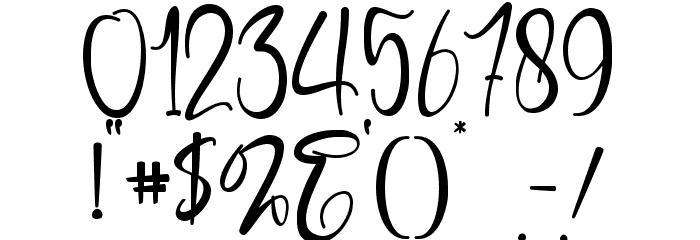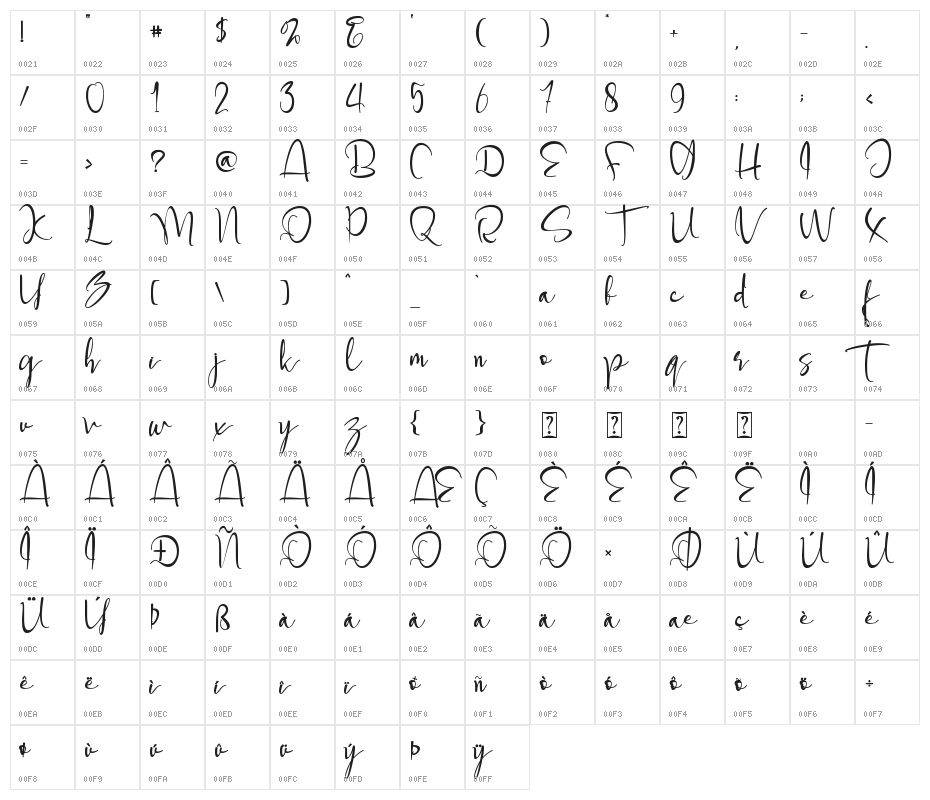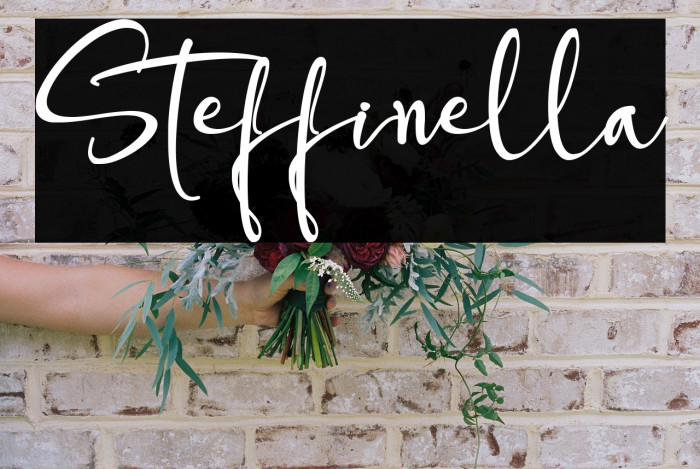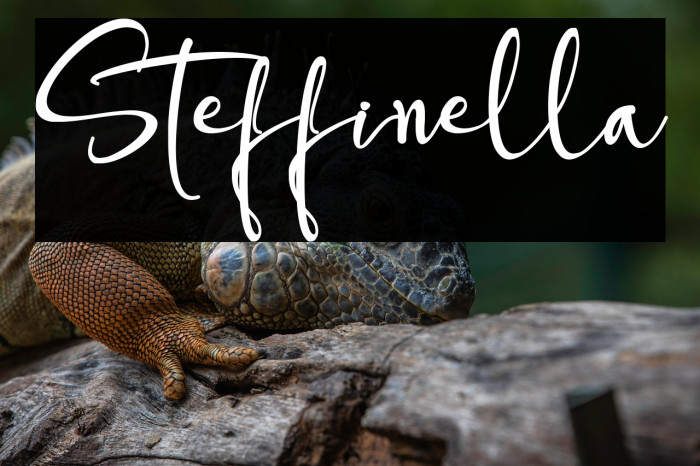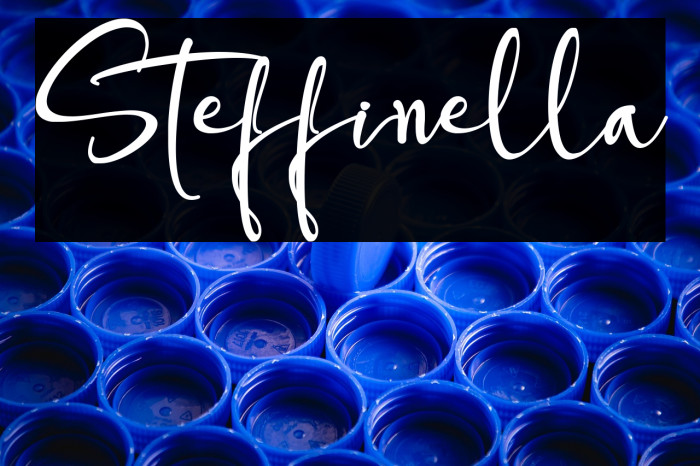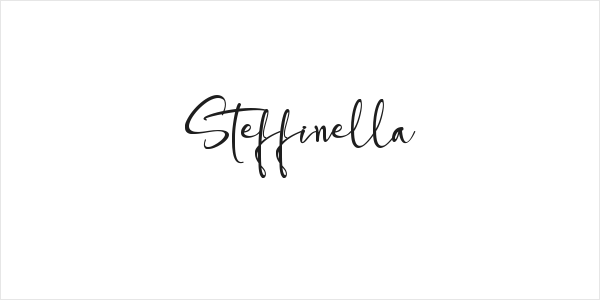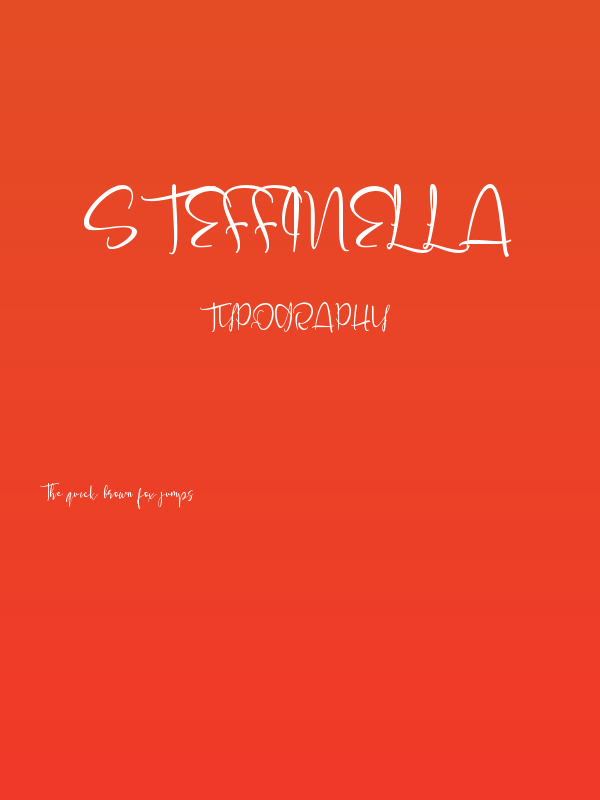
Steffinella Font
Steffinella Description
This font exudes a lively and dynamic character with its flowing, cursive style. The letters are interconnected, creating a seamless and elegant appearance. The uppercase letters are bold and expressive, while the lowercase letters maintain a consistent rhythm, enhancing readability. The numerals are distinct yet harmonize well with the overall script style. Special characters are creatively integrated, adding to the font's versatility. This font is perfect for projects that require a personal touch, such as invitations, greeting cards, and branding materials.
Use CaseLogos, Headlines, Invitations
Proposed ProjectsIdeal for invitations, greeting cards, branding, and personal projects.